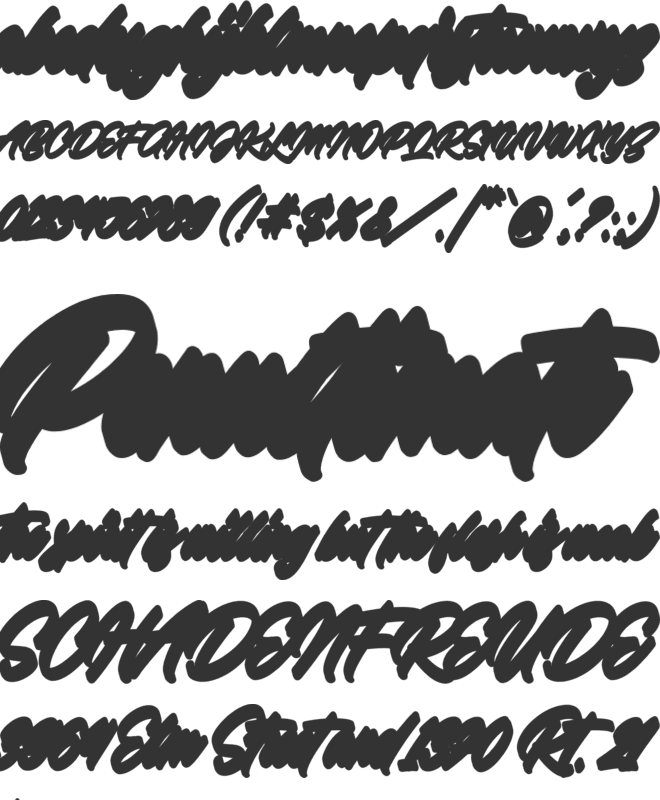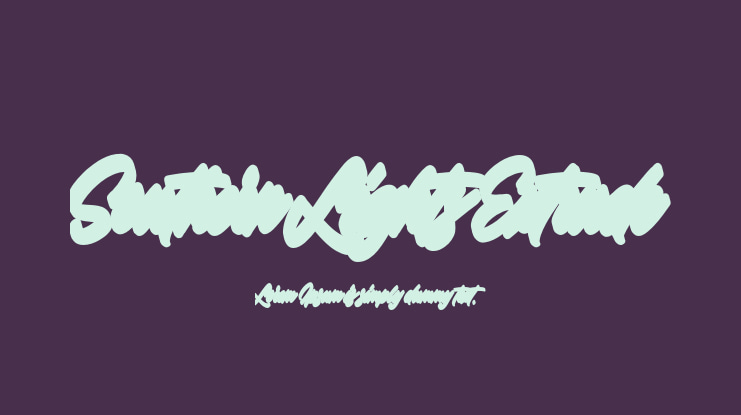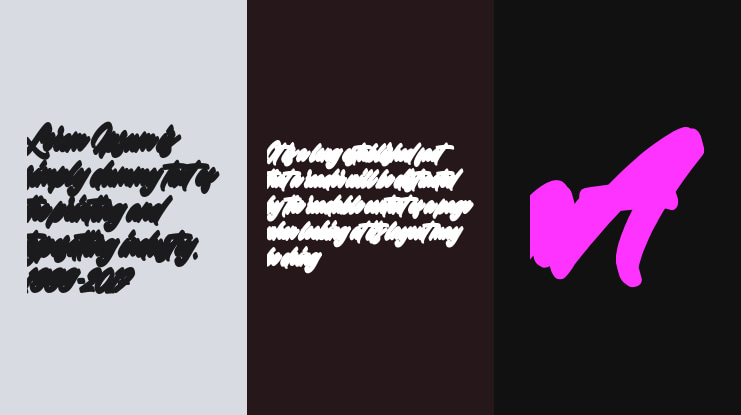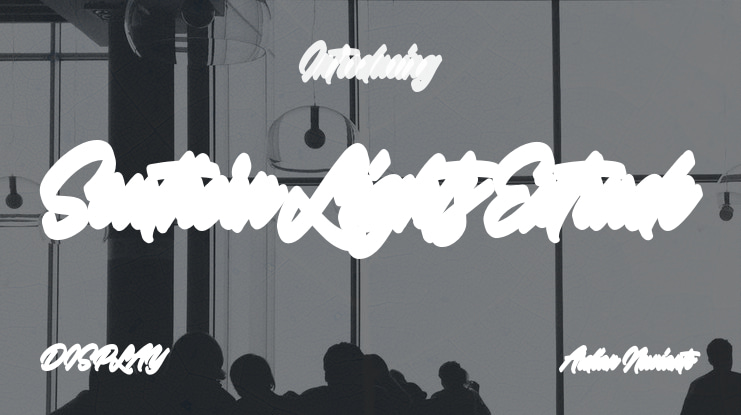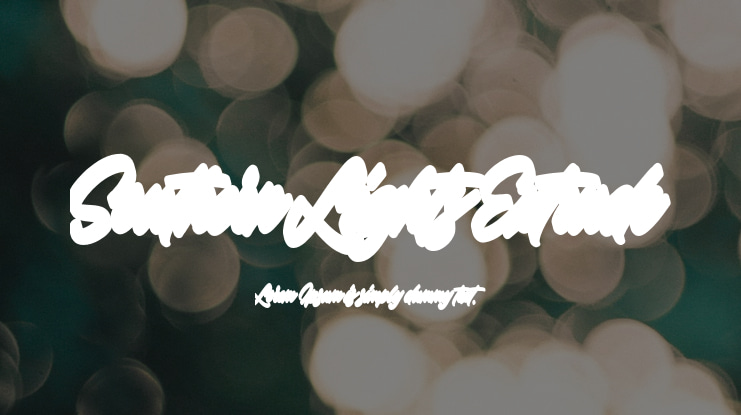
Southern Lights Extrude Font Family
Ardian Nuvianto
Southern Lights is a versatile and elegant handwriting script typeface that radiates warmth, sophistication, and charm. Its smooth, flowing letterforms and delicate handcrafted style encapsulate the natural beauty of handwritten calligraphy, while maintaining a polished and professional appearance. Ideal for a wide range of creative projects, Southern Lights excels in everything from branding and packaging to wedding stationery and social media designs.